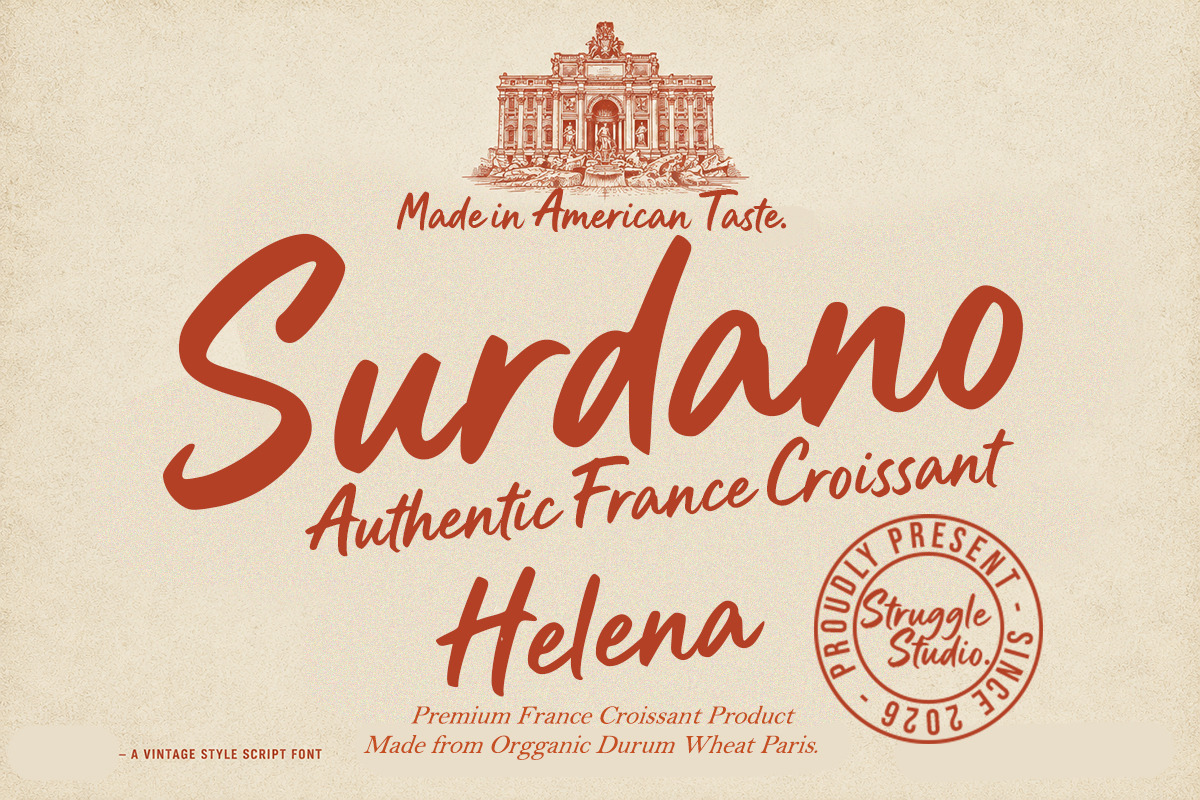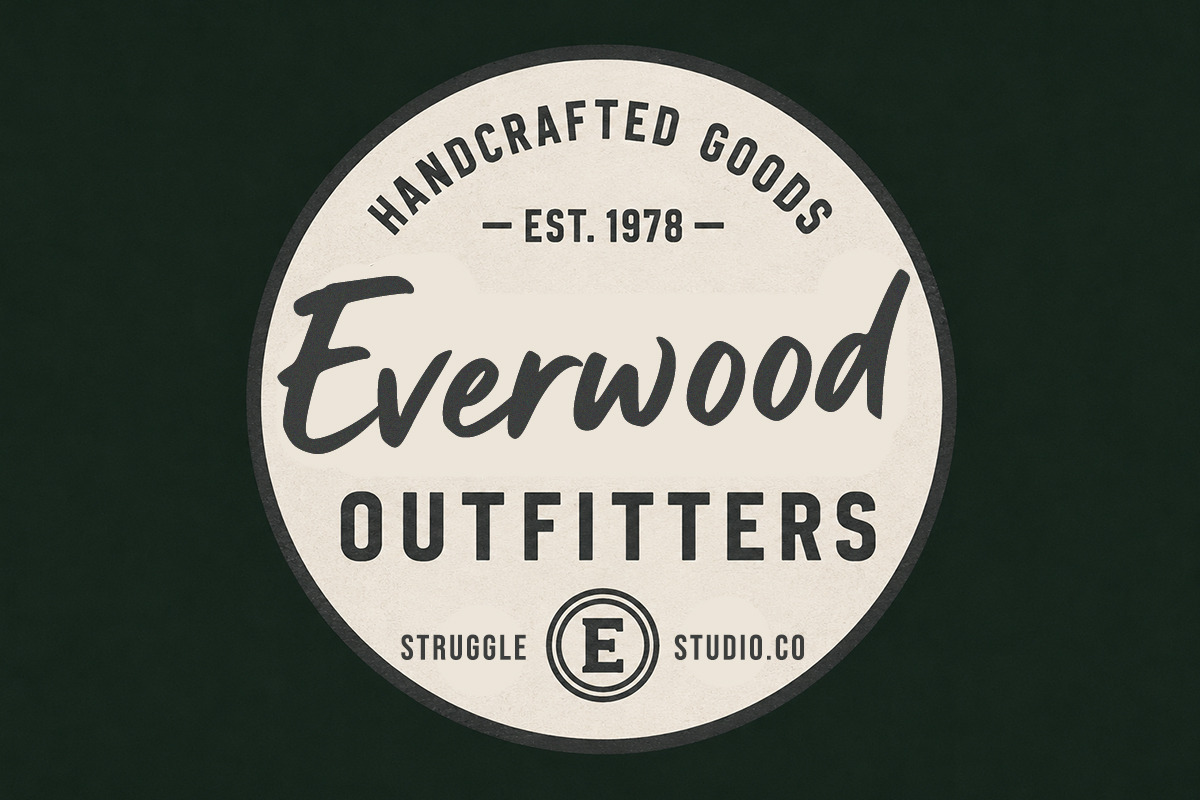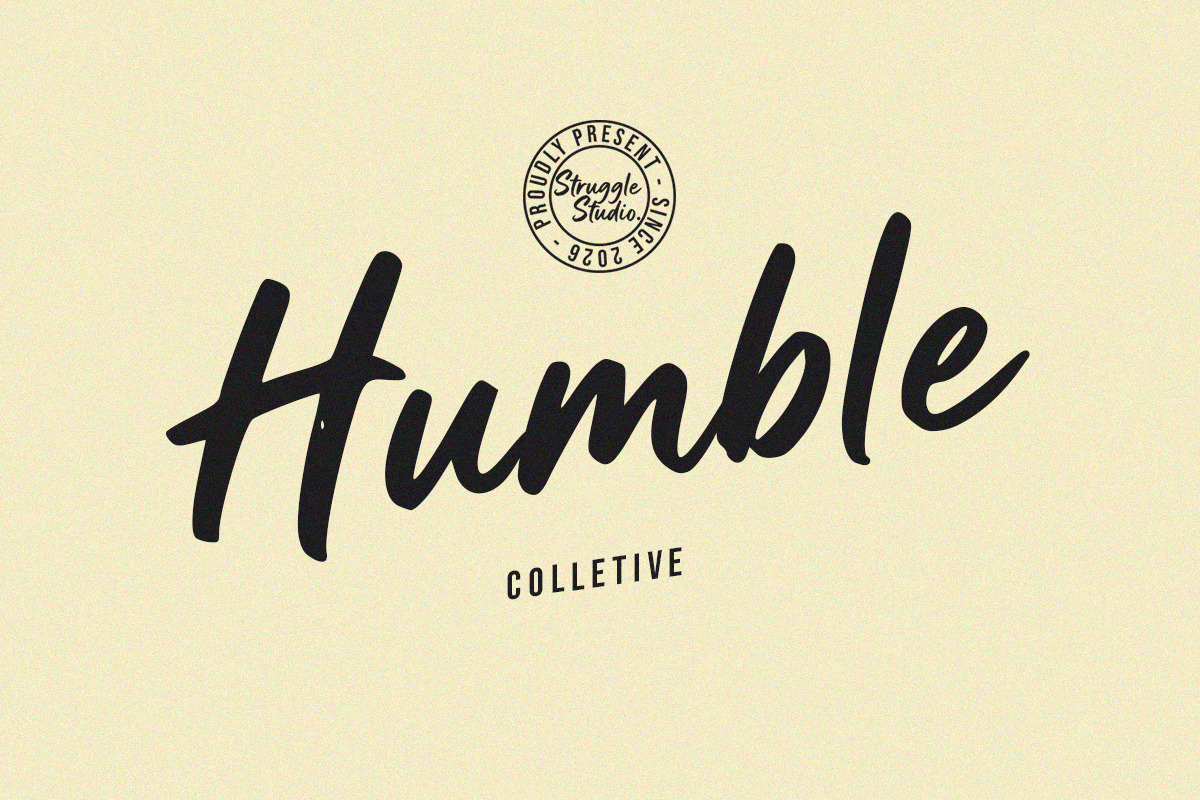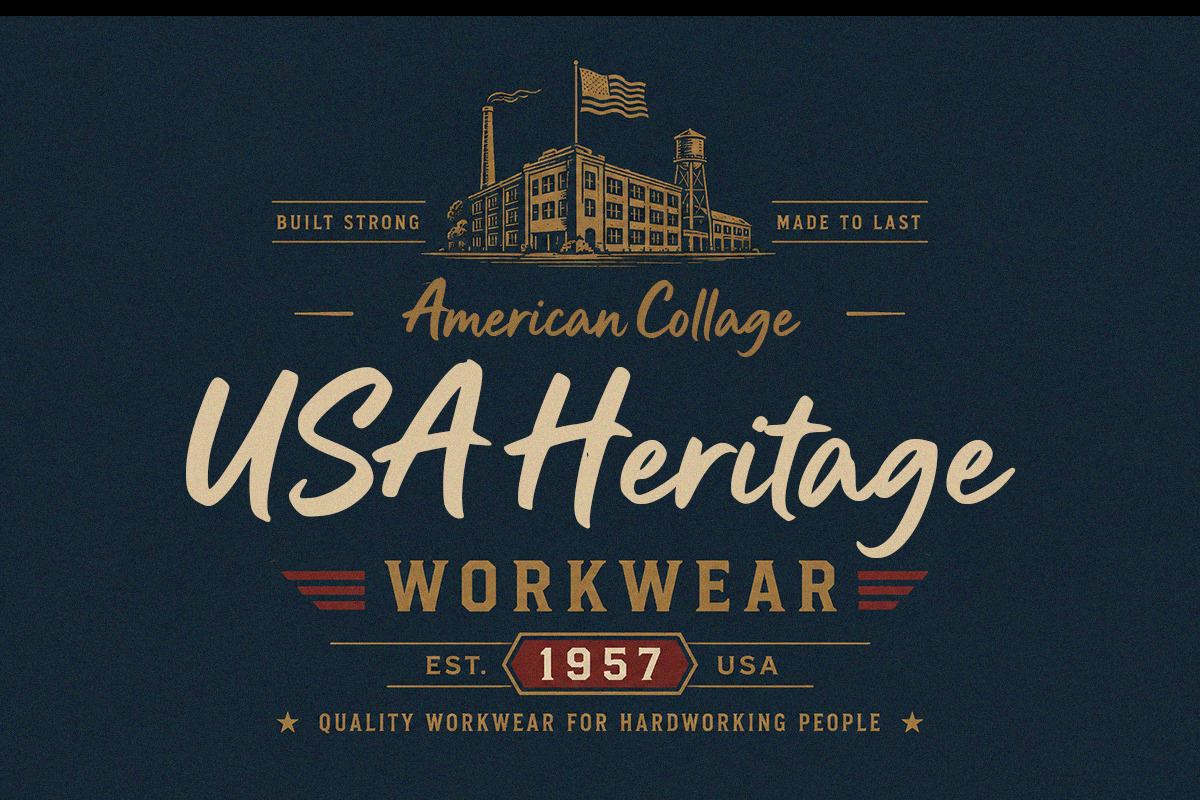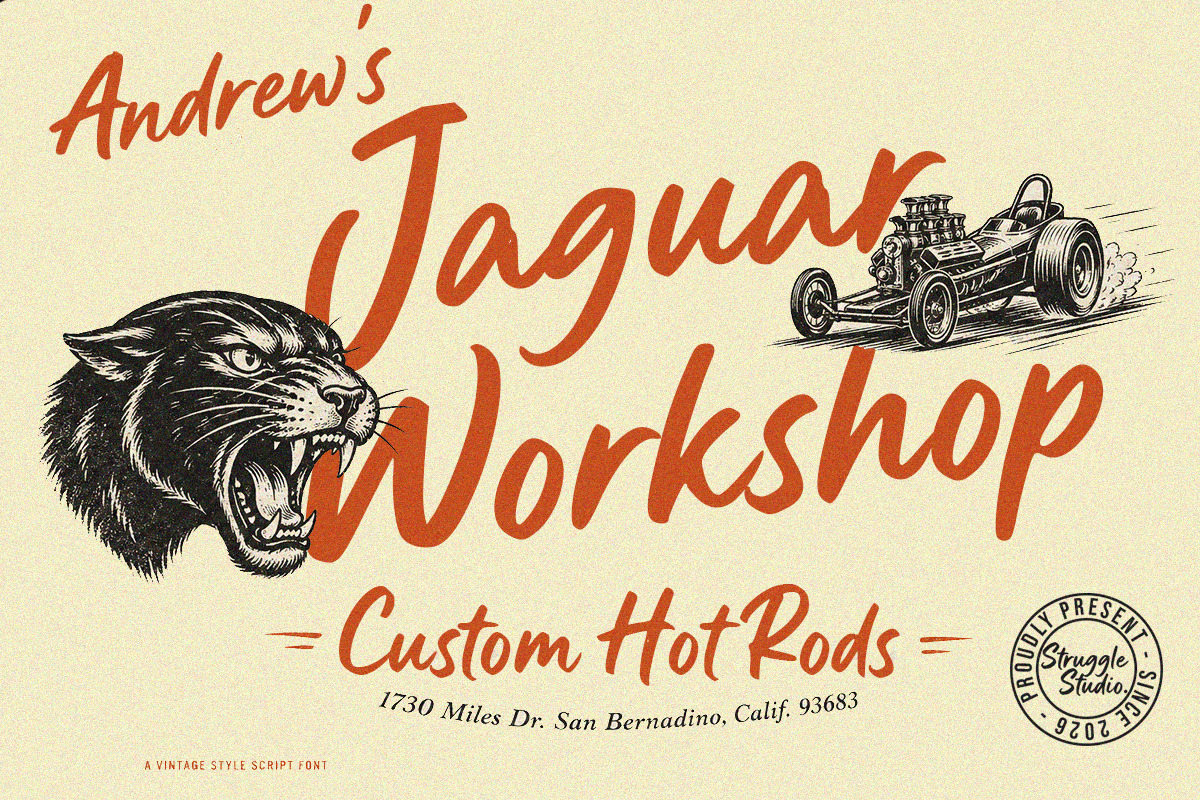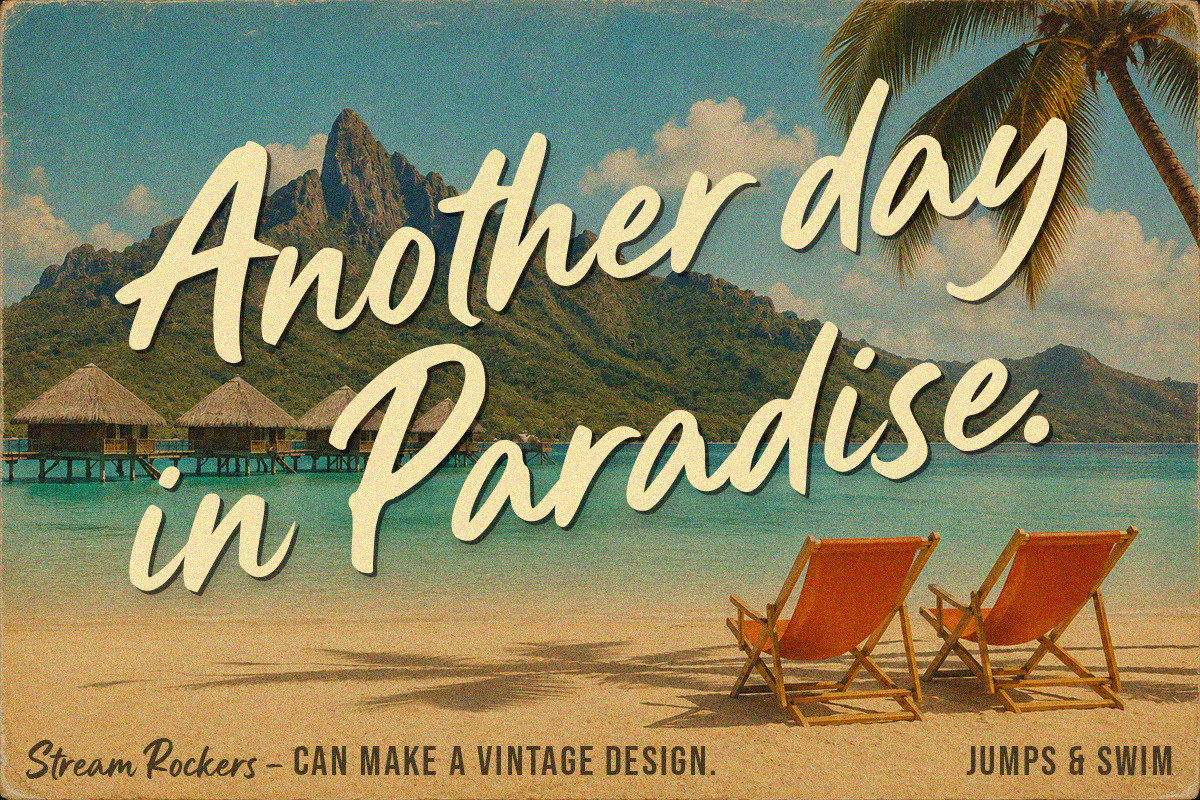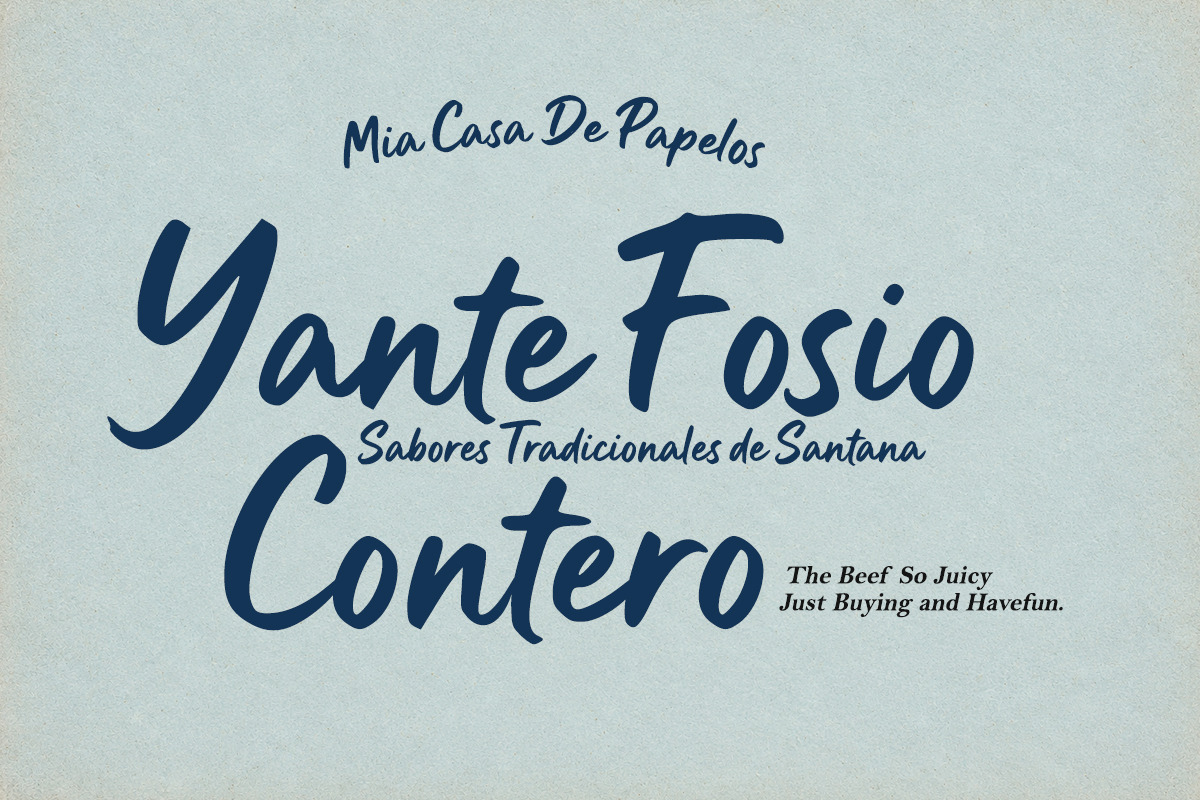
Stream Rockers
Stream Rockers – A Vibrant Handwritten Script Font
Unveiling Stream Rockers, a dynamic handwritten script font brought to you by Struggle Studio. This typeface perfectly blends the raw energy of casual handwriting with a smooth, flowing rhythm. With its bold strokes and natural connections, it brings an authentic, human touch to any design.
Stream Rockers is highly versatile and ideal for branding, logotypes, merchandise, apparel design, social media graphics, quote posts, and packaging. Give your projects a bold, expressive, and unforgettable look with this stylish script!
Elevate your creative designs with Stream Rockers, a beautifully crafted handwritten script font by Struggle Studio. This font delivers a bold yet casual aesthetic that flows effortlessly across the page.
Authentic Flow: Natural connections and fluid strokes that mimic real handwriting.
Bold & Expressive: Perfect for making a strong statement in headlines and logos.
Versatile Application: Excellent for branding, merchandise, quotes, and web design.